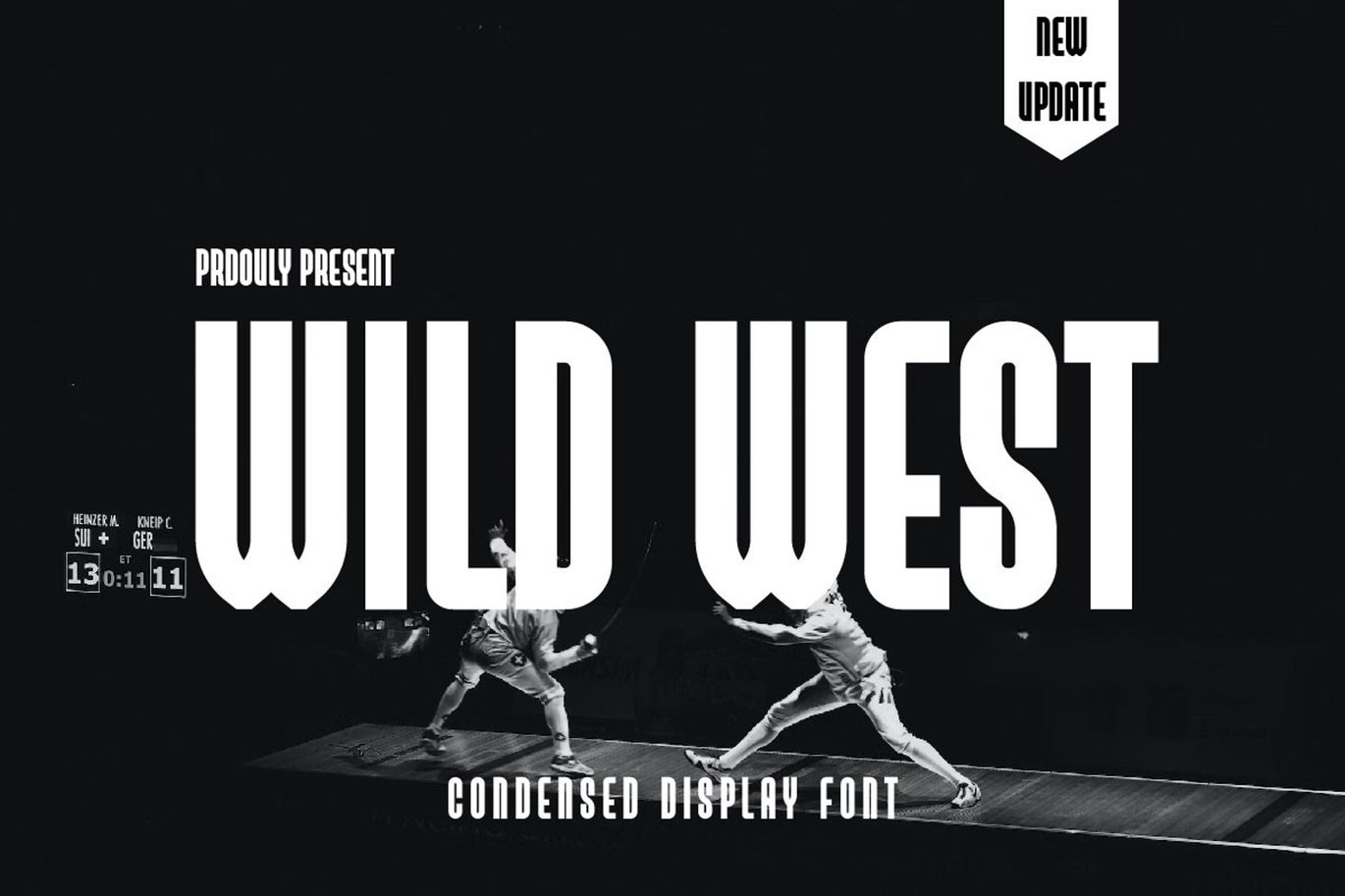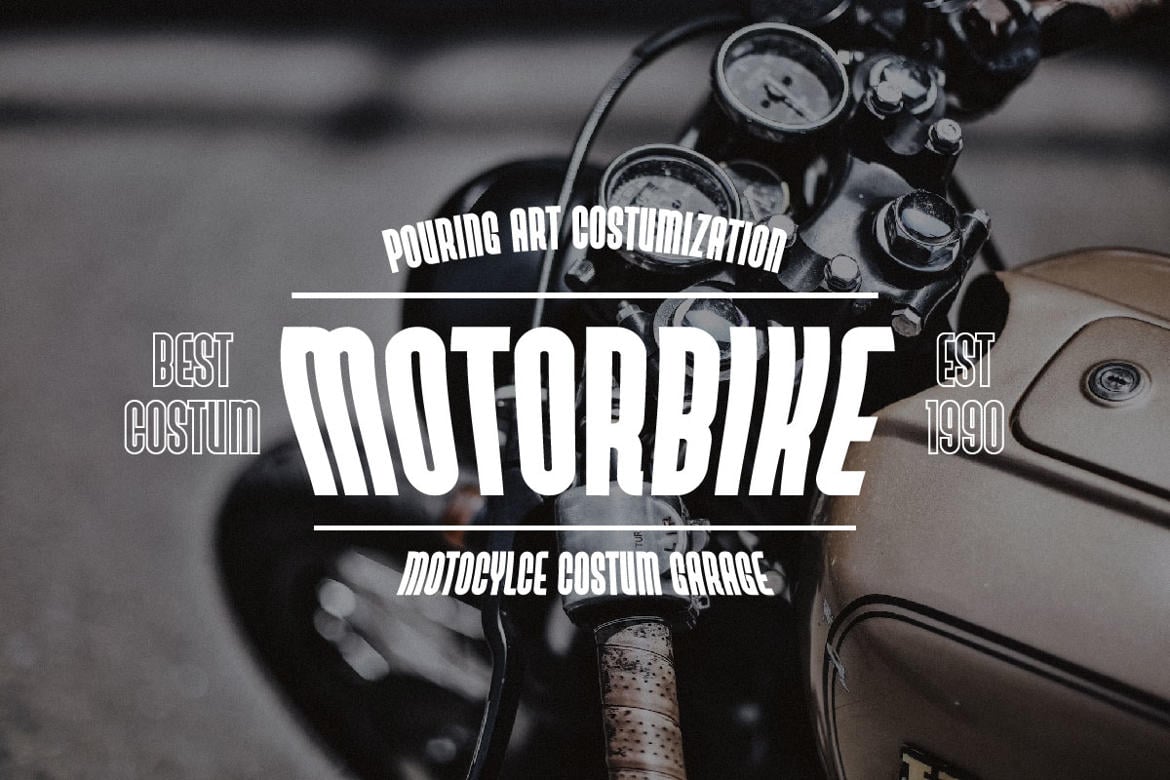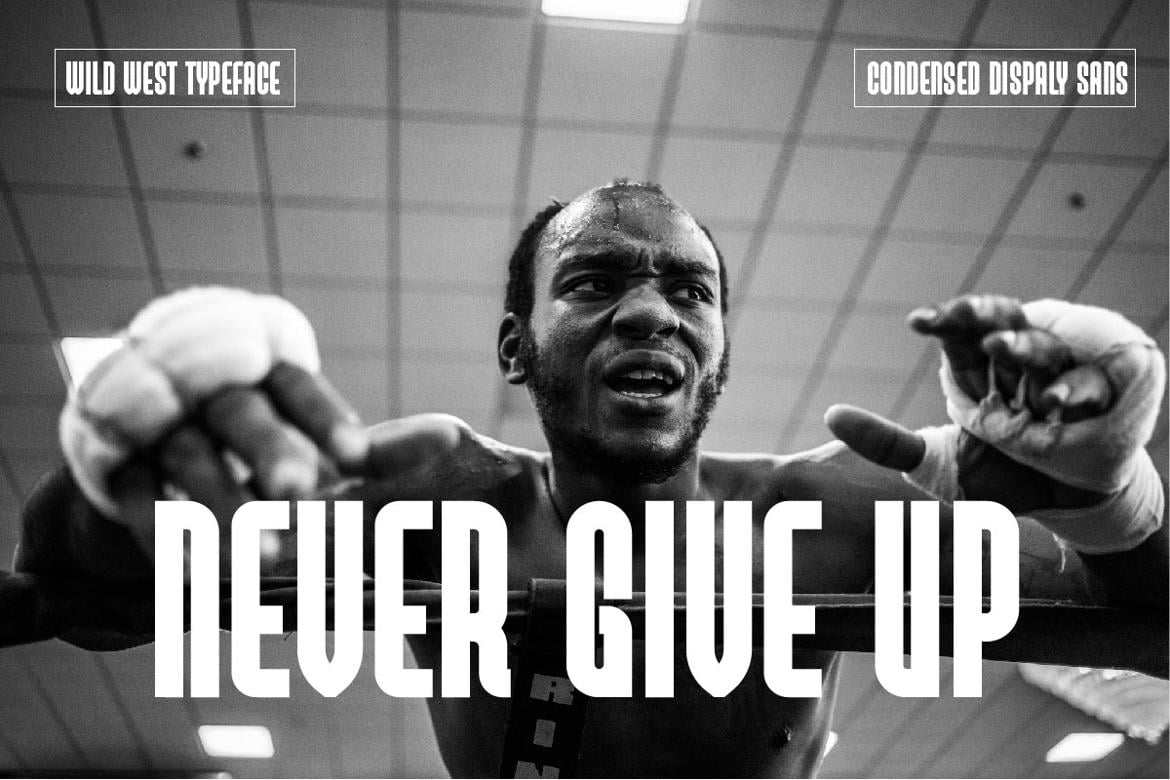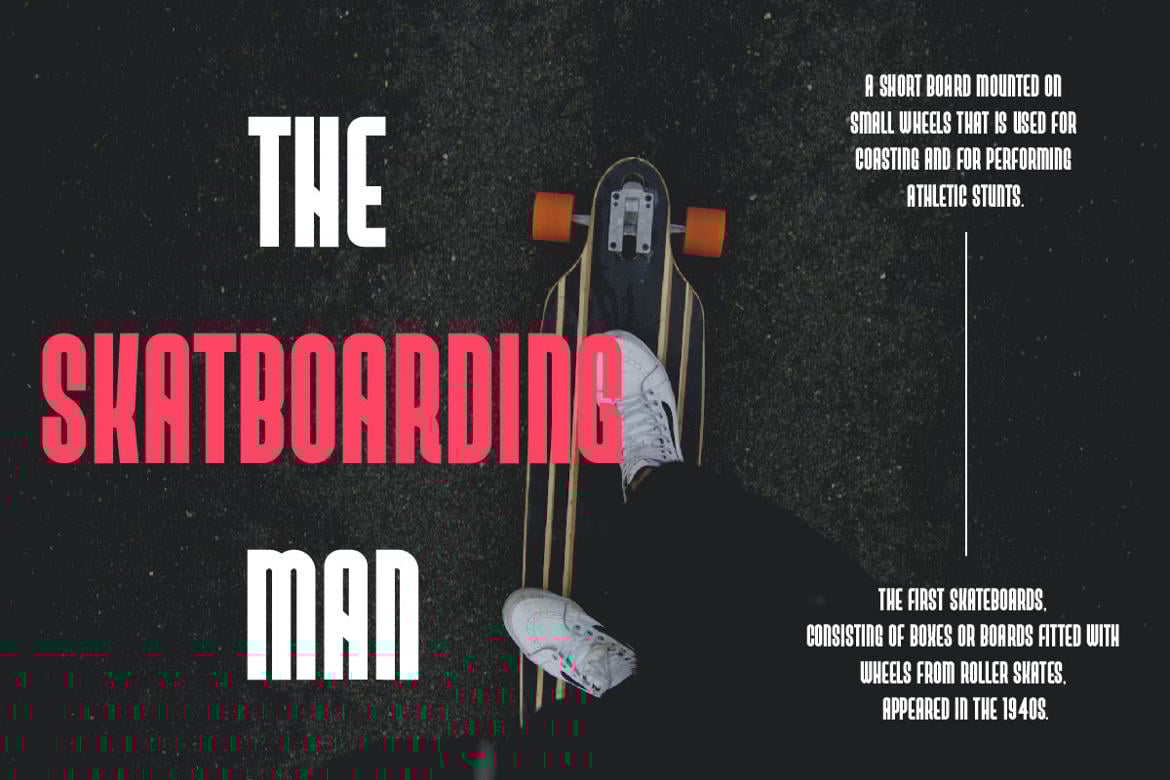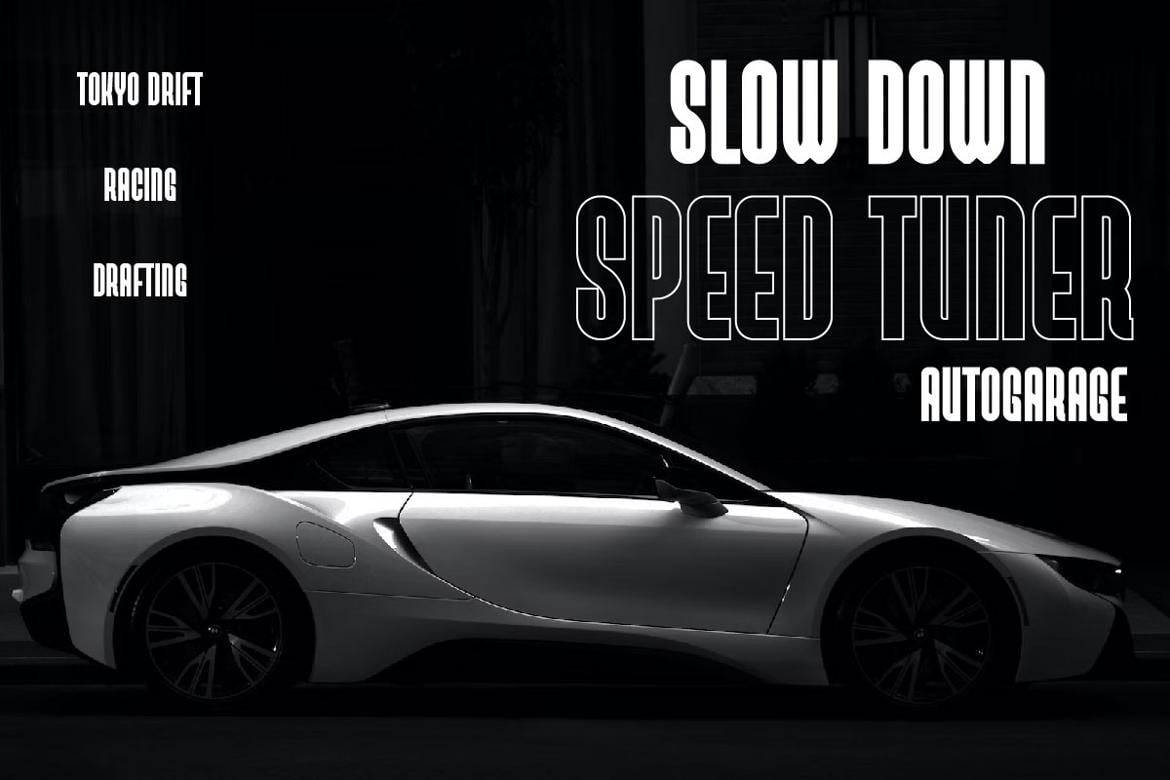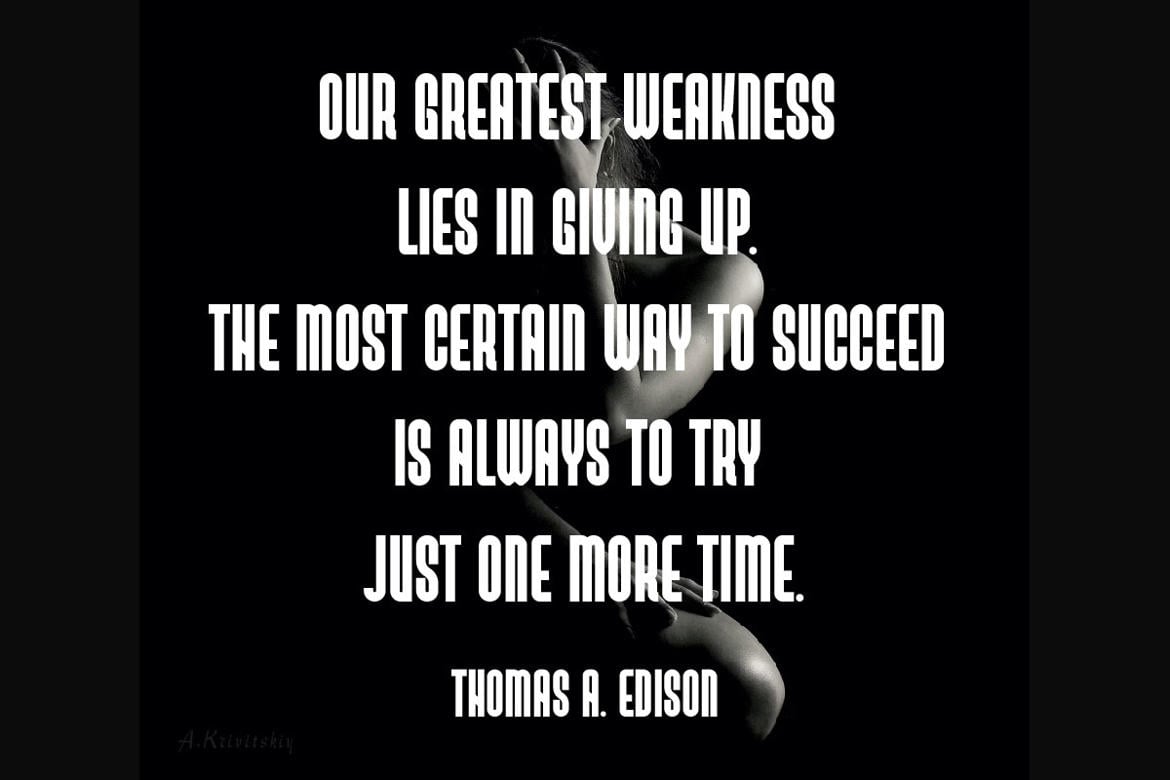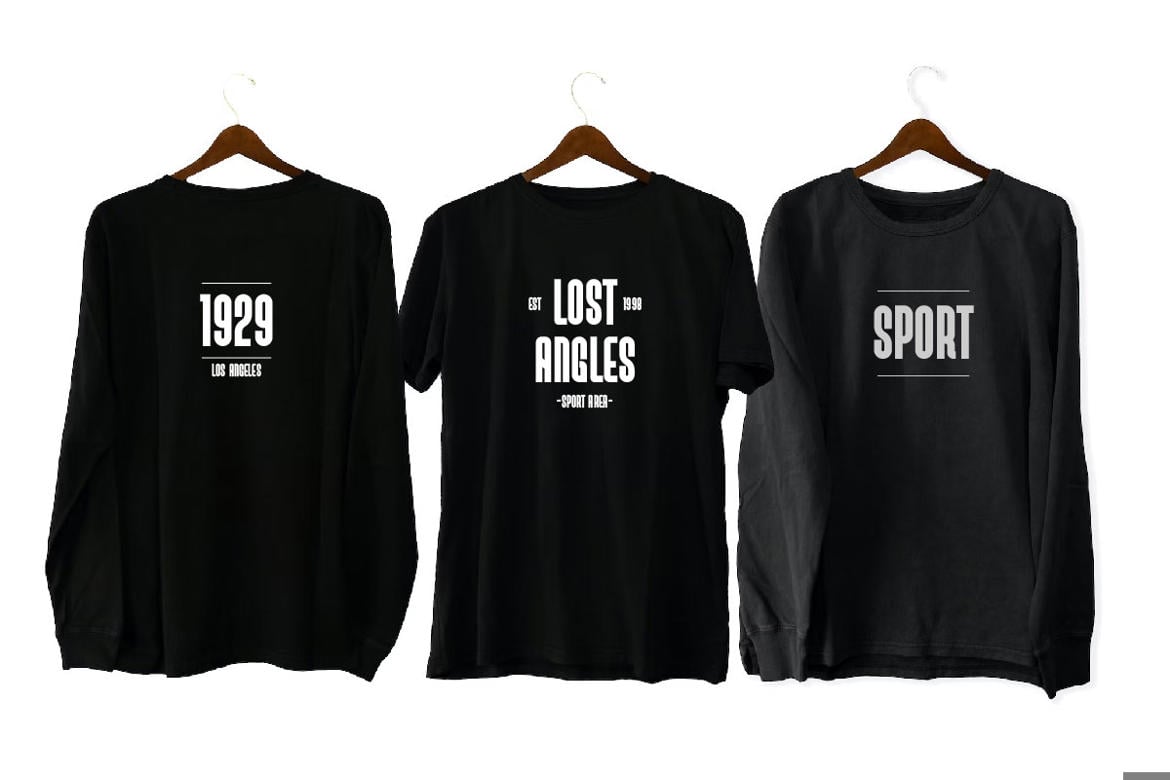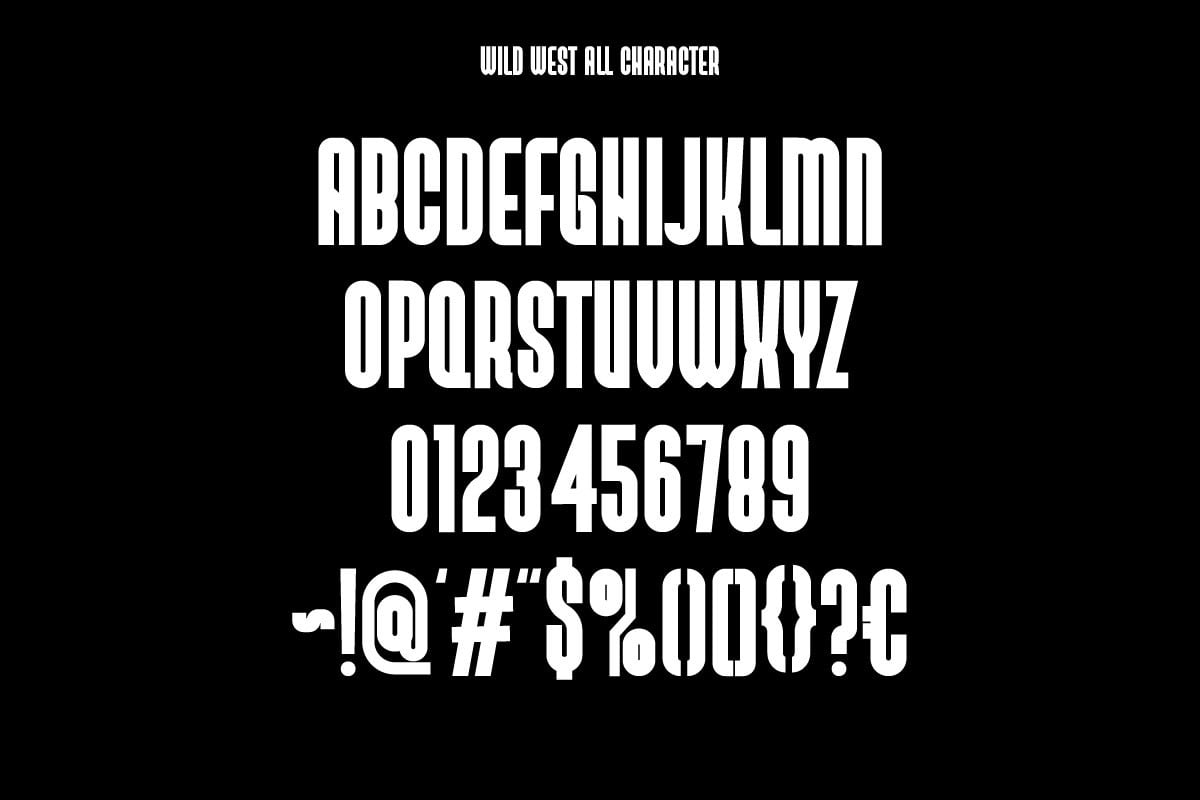
Wild West – Sporty Condensed Display Font
Wild West is a sporty condensed display font inspired by sports and automotive poster typography. Its bold and dynamic letterforms make it perfect for logotypes, advertisements, branding projects, photography watermarks, magazines, invitations, product packaging, corporate branding, labels, and more. Whether you’re designing for sports events, automotive brands, or energetic modern projects, Wild West adds a powerful and striking touch to your work.
- Standard glyphs with a complete character set
- Supports numbers & punctuation
Unleash the power of Wild West – a strong and dynamic sporty condensed display font.